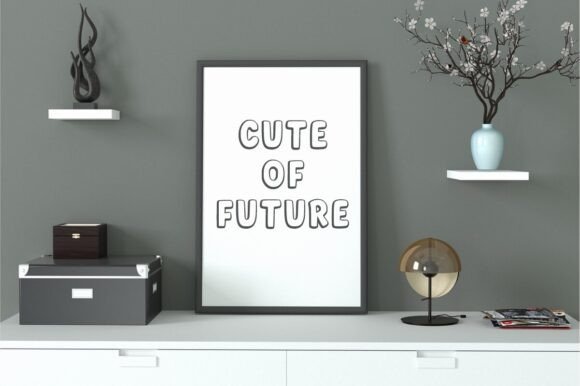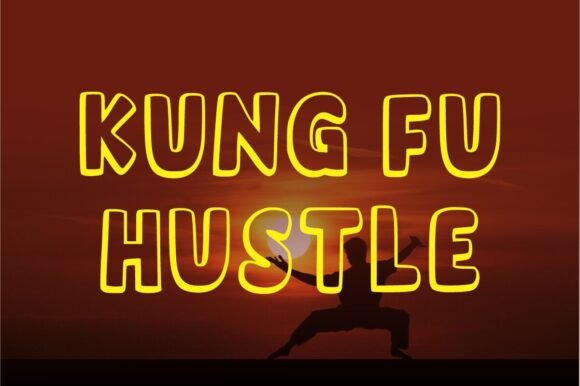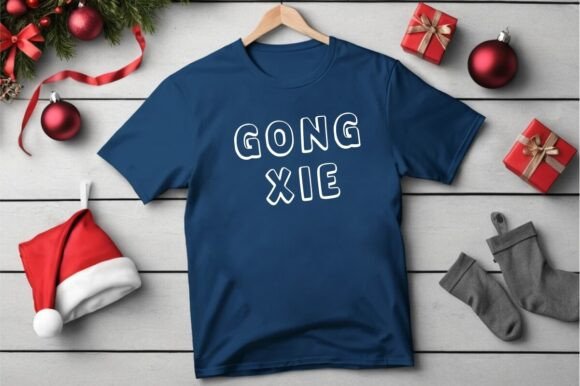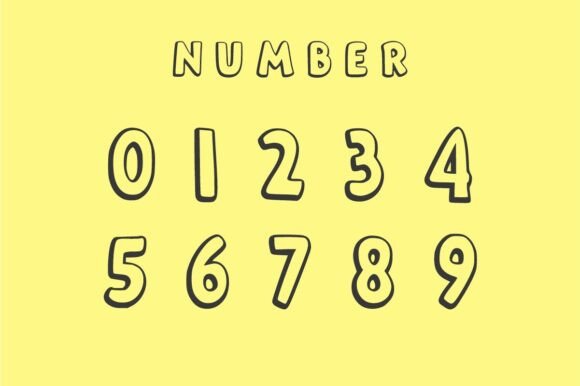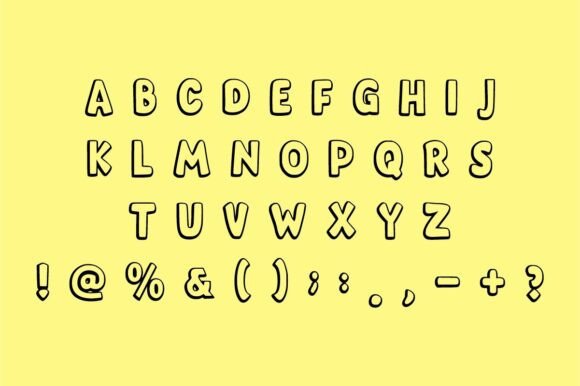
Introduction to Shaolin Monk Font
Remember that moment when you stumbled upon the perfect design element, and your creative project instantly came to life? It’s the kind of ‘aha’ moment that designers live for, and it’s what makes the Shaolin Monk Font so special.
As a free download, this delightful display font is perfect for adding a touch of whimsy to your designs. Its bright, fun, and cute aesthetic makes it a must-have for any designer looking to create engaging, high-quality content – especially for children-themed projects. The Shaolin Monk Font is a valuable resource for designers, offering endless possibilities for creativity. Whether you’re working on a project that requires a bold, eye-catching headline or a playful, hand-drawn feel, this font is sure to bring a smile to your face and your design to life.
Key Features of Shaolin Monk Font
- Unique, hand-drawn design with a traditional Asian flair, making it a perfect fit for any creative project.
- Perfect for use in graphic design, digital art, and other creative projects where a unique, Asian-inspired font is desired.
Honest Review: Shaolin Monk Font
I recently stumbled upon the Shaolin Monk Font, and I must say, it’s an interesting addition to any creative project. The font’s unique, Asian-inspired design elements caught my attention, and I was excited to explore its possibilities.
- ✨ High-quality design: The font is well-crafted, with smooth lines and clear typography.
- ✨ Versatile use: The font can be used in a variety of creative projects, from logos to posters, and even digital designs.
- ⚠️ Limited character set: The font’s character set is somewhat limited, which may not be suitable for complex text-based designs.
- ⚠️ Not ideal for body text: The font’s unique design may not be the best choice for body text, as it can be difficult to read in larger quantities.
Overall, the Shaolin Monk Font is a great design resource for creative projects that require a unique, Asian-inspired look. While it may have some limitations, its high-quality design and free download make it a worthwhile addition to any designer’s toolkit.
Use the Shaolin Monk Font to add a touch of Eastern-inspired elegance to your design projects. This high-quality font is perfect for creating a unique and eye-catching visual identity.